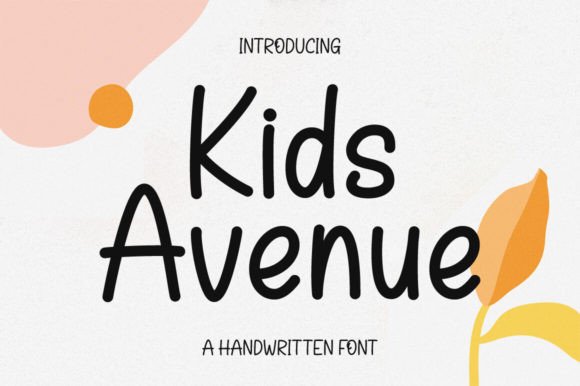
Grasp the charm of childhood with Kids Avenue Font, a display font family that brims with joy, innocence, and boundless creativity. Embark on a whimsical journey as you explore the enchanting world of Kids Avenue, where imagination knows no bounds, and laughter fills the air.
Awaken the playful spirit within you as you craft captivating logos that dance with childlike exuberance. Unleash your inner artist and design branding that radiates warmth and whimsy, leaving an everlasting impression on your audience. Capture the essence of childhood memories, heartfelt quotes, and inspiring messages with this delightful font family, transforming words into vibrant works of art.
Imagine the joy of your little ones as they encounter the cheerful and captivating characters that make up Kids Avenue Font. Watch their eyes sparkle with delight as they explore the enchanting world you've created, filled with playful designs and enchanting stories. Let their imaginations soar as they dive into the boundless possibilities that this font family offers, inspiring them to dream big and embrace the magic that lies within.
With Kids Avenue Font, you'll be part of a vibrant community of creative minds, passionate about spreading joy and laughter through their designs. Join the movement and let your creativity shine bright, igniting smiles and capturing hearts wherever your creations go. Experience the transformative power of Kids Avenue Font today and unlock a world where imagination thrives and dreams come alive.